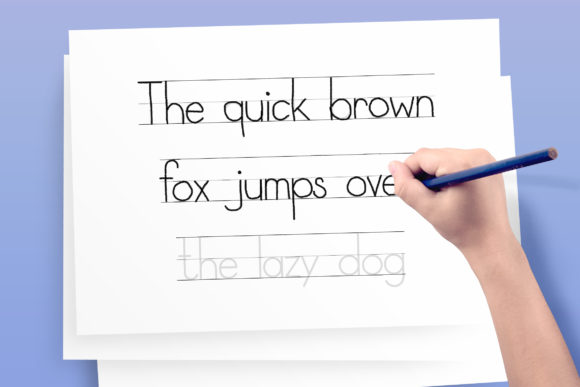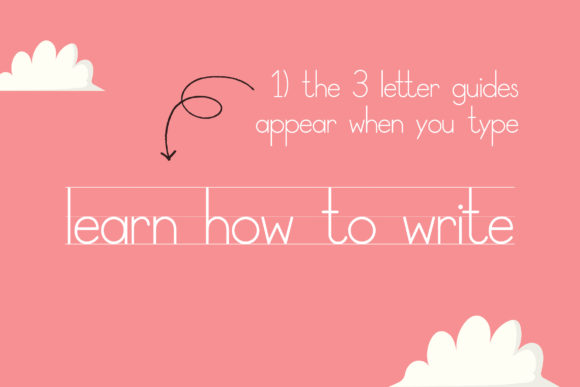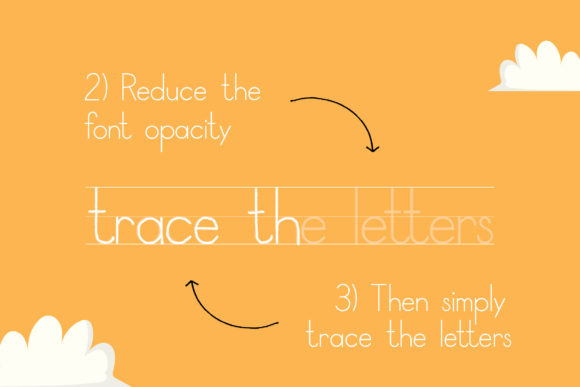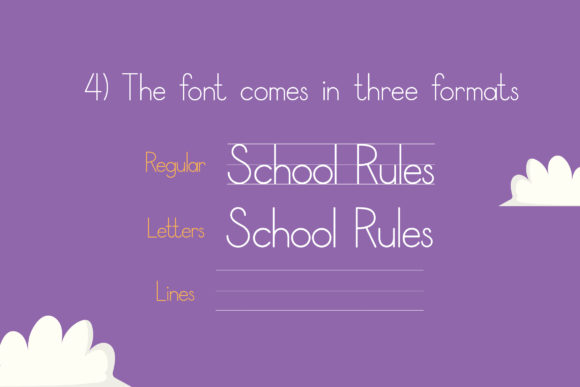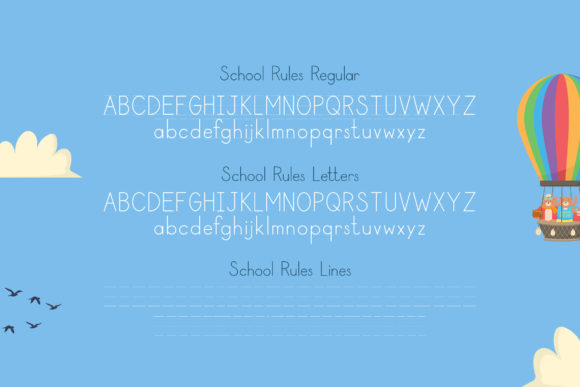
Introduction to School Rules Font
School Rules is a minimal and neat sans serif font.
Key Features of School Rules Font
Why Choose School Rules Font?